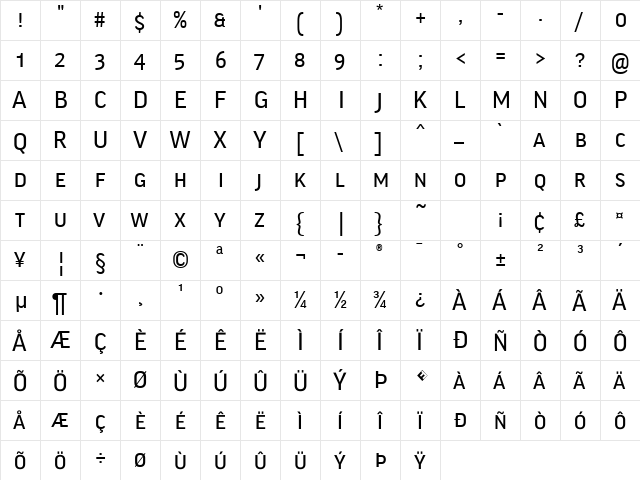
Good-BookSC Regular
| Foundry | FSI Fonts und Software GmbH |
| Designer | Lukasz Dziedzic |
Design Context for Good-BookSC Typeface
Good-BookSC offers clean, dependable letterforms without strong stylistic allegiance, making it a practical choice for designers who need flexibility.